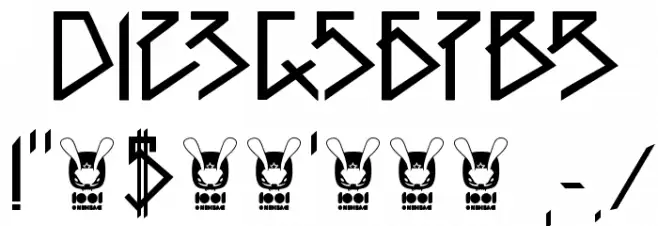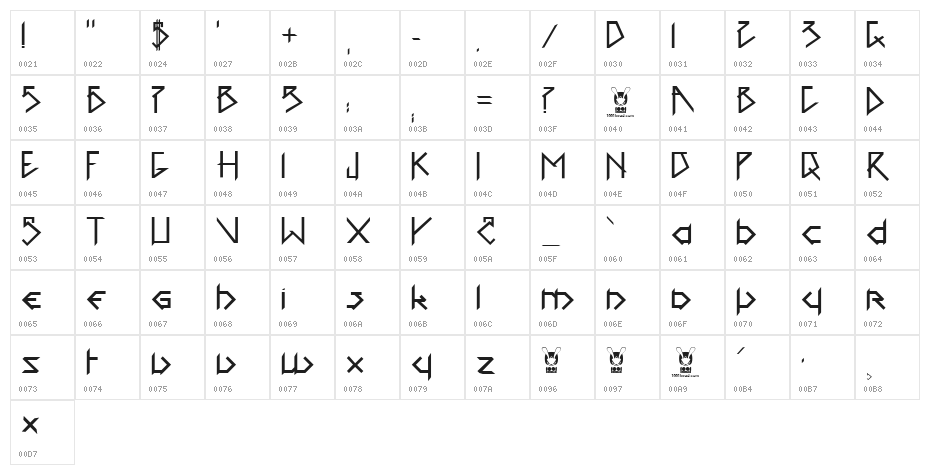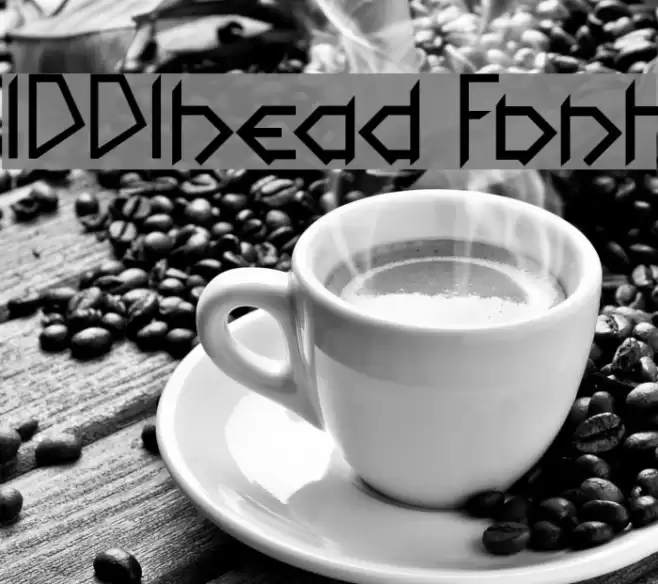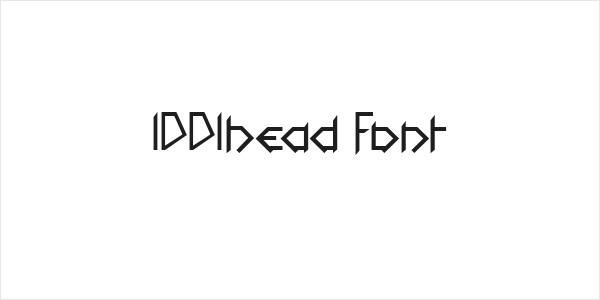
1001head Font Font
1001head Font Description
This font features a bold and angular design with a futuristic and edgy appearance. The characters are constructed with sharp, geometric lines that create a sense of movement and energy. The uppercase and lowercase letters maintain a consistent style, with distinctive angles and cuts that give the font a unique and striking look. The numbers follow the same design principles, ensuring uniformity across all characters. Special characters are included, adding versatility to the font's use. This font is ideal for projects that require a modern and dynamic aesthetic, such as branding for tech companies or video game titles.
| Proposed Projects | Ideal for tech branding, video game titles, and modern posters. |